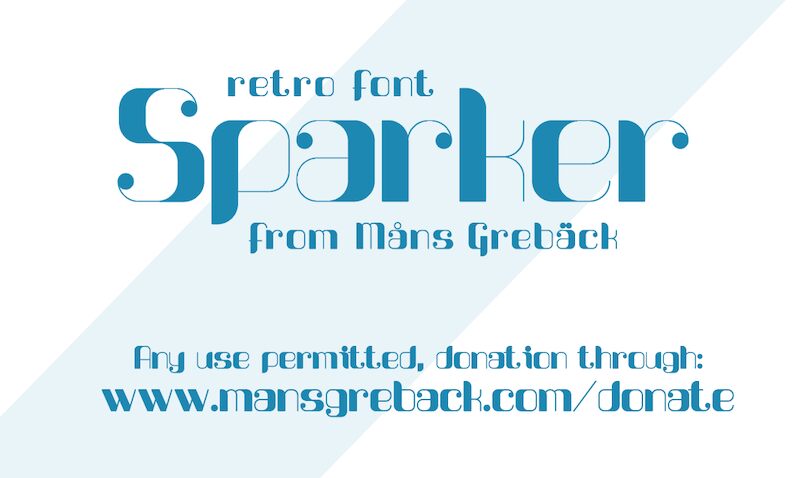
Sparker Italic
Sparker Italic is a captivating display font from the Sparker font family, designed by Mans Greback. With its retro style and semi-bold weight, this font adds a touch of nostalgia to any project.
Its semi-expanded width gives it a unique presence, making it perfect for eye-catching headlines, vintage-inspired logos, or stylish packaging designs. Let Sparker Italic bring your creative visions to life with its bold yet elegant letterforms that will effortlessly transport your audience back in time.